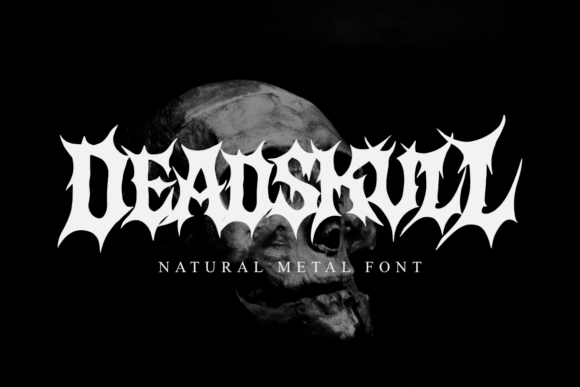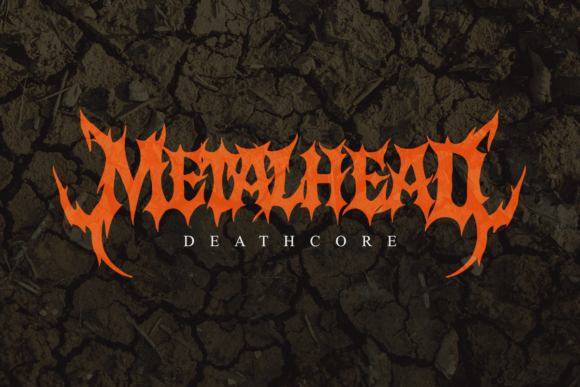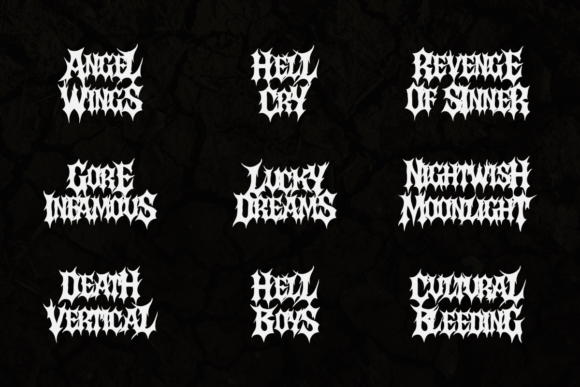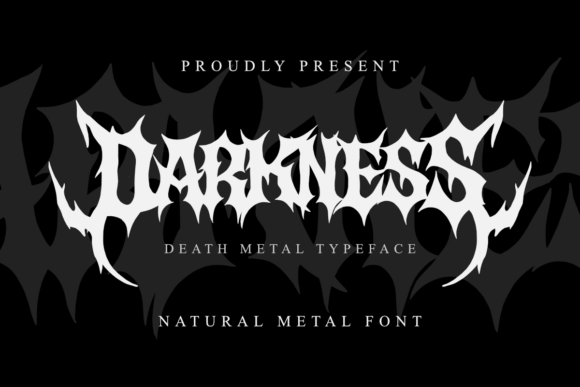
Unleash the Fury: Introducing Darkness Font – The Ultimate Choice for Extreme Metal and Horror Designs
Are you a designer, artist, or crafty enthusiast looking to add a touch of raw energy and darkness to your projects? Look no further than Darkness Font, a hand-crafted extreme metal font inspired by the bold and brutal logos of black metal and death metal bands. This font is specifically designed to capture the essence of underground extreme music, making it perfect for a wide range of applications, from band logos and album covers to posters, apparel, tattoos, and horror-themed projects.
The Inspiration Behind Darkness Font
Darkness Font draws inspiration from the iconic logos of black metal and death metal bands, known for their aggressive and chaotic aesthetic. The font features sharp, jagged letterforms that reflect the raw energy and unbridled fury of extreme music. Each letter has been meticulously crafted to convey a sense of intensity and rebellion, making it an ideal choice for designers and artists who want to push the boundaries of their work.
Key Features of Darkness Font
- Hand-crafted design: Every letterform has been carefully crafted to ensure a unique and authentic look that sets it apart from generic fonts.
- Extreme metal inspiration: Inspired by the bold and brutal logos of black metal and death metal bands, Darkness Font embodies the spirit of underground extreme music.
- Sharp and aggressive letterforms: The font features sharp, jagged letterforms that convey a sense of intensity and rebellion.
- Chaotic and raw aesthetic: Darkness Font is designed to capture the raw energy and chaos of extreme music, making it perfect for projects that require a bold and unapologetic look.
Darkness Font is an incredibly versatile font that can be used in a variety of applications, including:
- Band logos and album covers: Create bold and eye-catching logos and album covers that reflect the intensity and energy of extreme music.
- Posters and flyers: Design posters and flyers that grab attention and convey the raw energy of underground music events.
- Apparel and merchandise: Add a touch of extreme metal style to t-shirts, hoodies, and other merchandise.
- Tattoos and body art: Use Darkness Font to create bold and striking tattoo designs that reflect the intensity of extreme music.
- Horror-themed projects: Add a touch of darkness and horror to your projects, from film posters to video game designs.
Why Choose Darkness Font?
So why choose Darkness Font over other fonts? Here are just a few reasons:
- Authentic aesthetic: Darkness Font captures the raw energy and intensity of extreme music, giving your projects an authentic and unapologetic look.
- High-quality design: Every letterform has been meticulously crafted to ensure a high-quality design that looks great in any application.
- Versatility: Darkness Font can be used in a wide range of applications, from band logos to horror-themed projects.
| Font Name | Darkness Font |
| Author | Almairatype Studio |
If you’re looking for a font that embodies the raw energy and intensity of extreme music, look no further than Darkness Font. With its hand-crafted design, sharp and aggressive letterforms, and chaotic aesthetic, this font is perfect for designers and artists who want to push the boundaries of their work. Whether you’re designing for metal bands, horror films, or underground zines, Darkness Font is the ultimate choice for adding a touch of darkness and intensity to your projects.